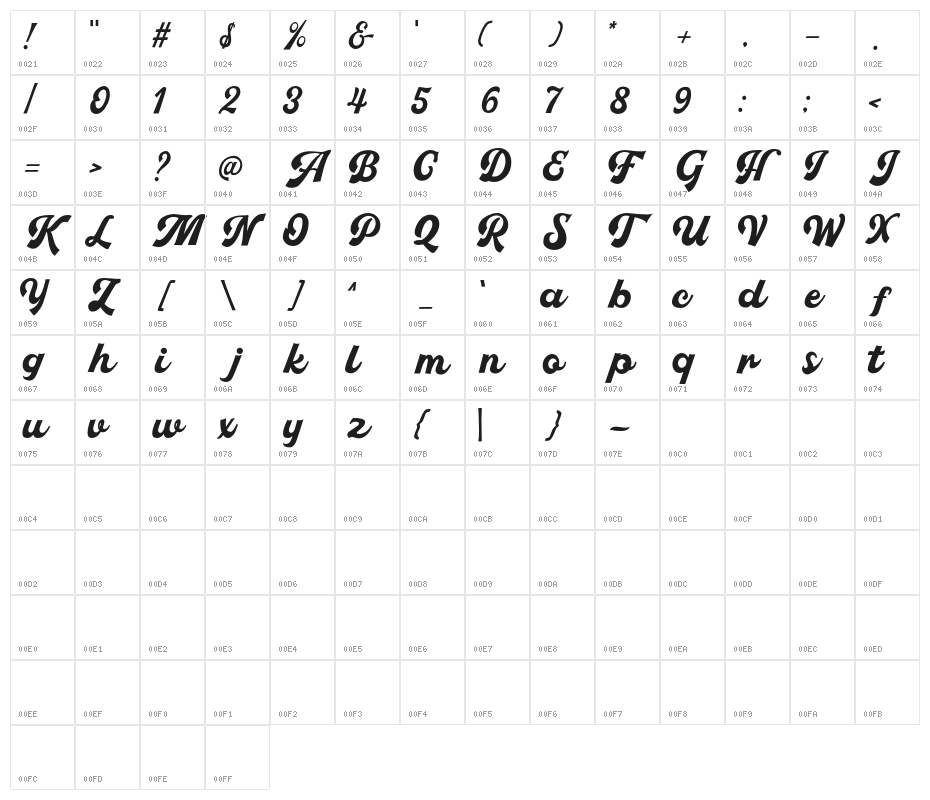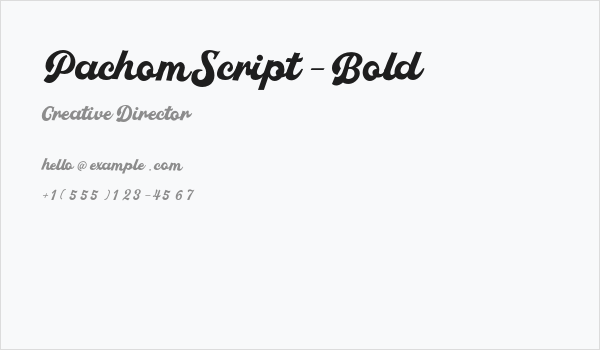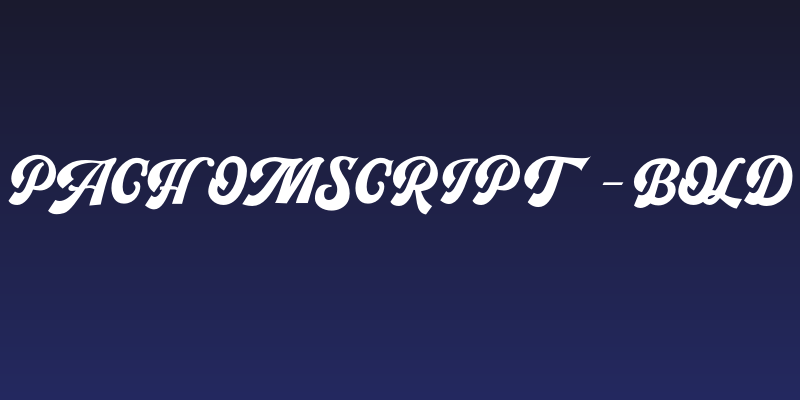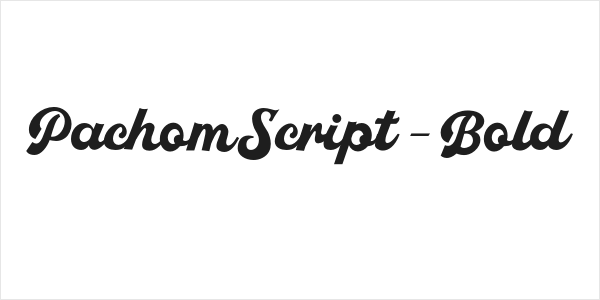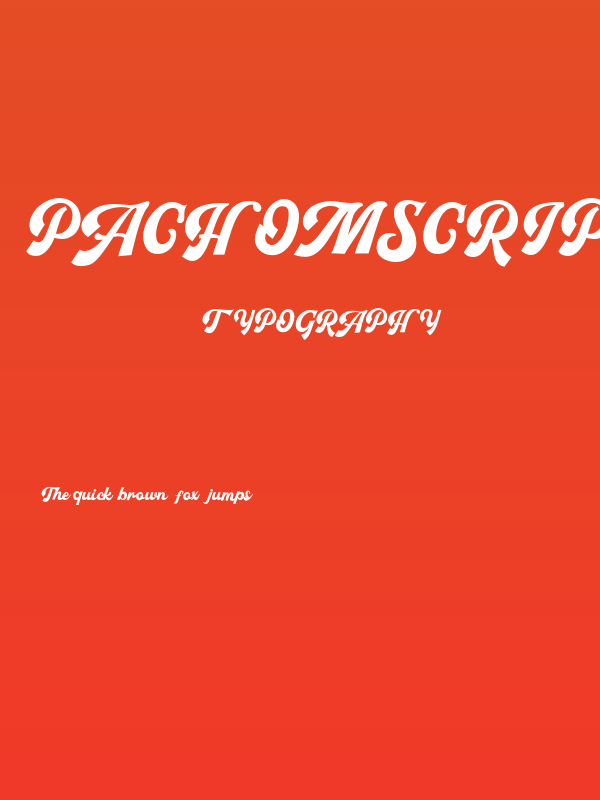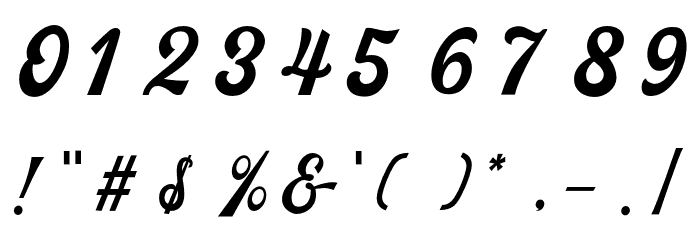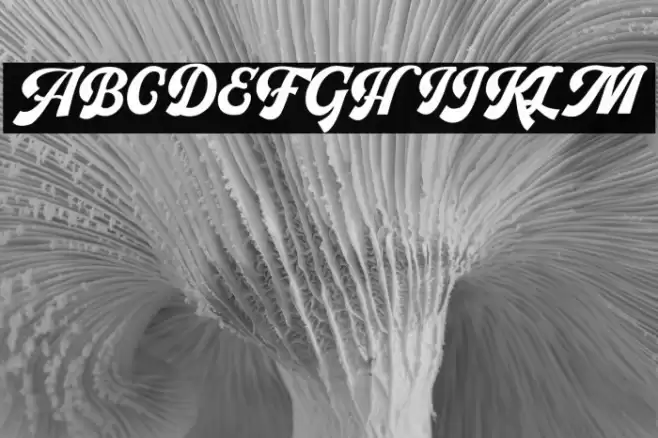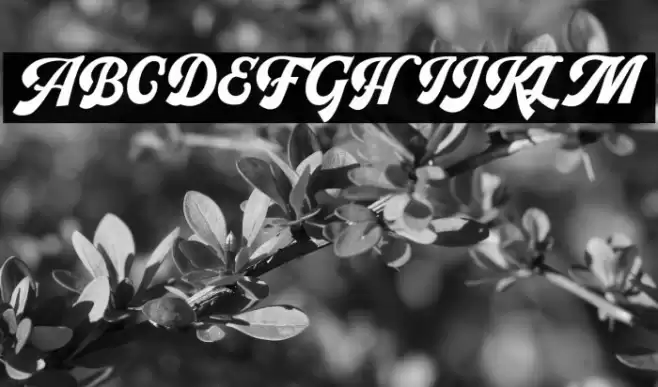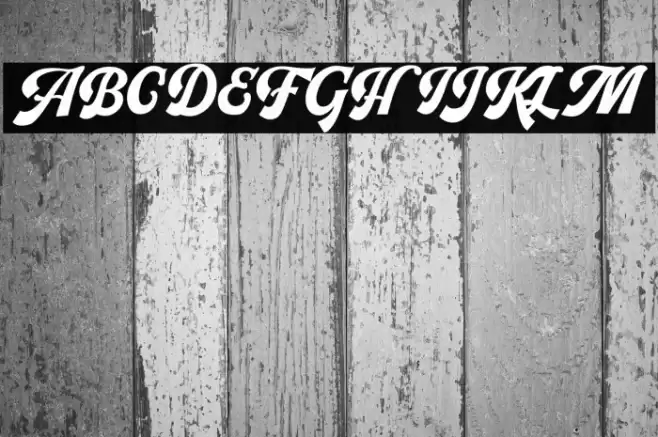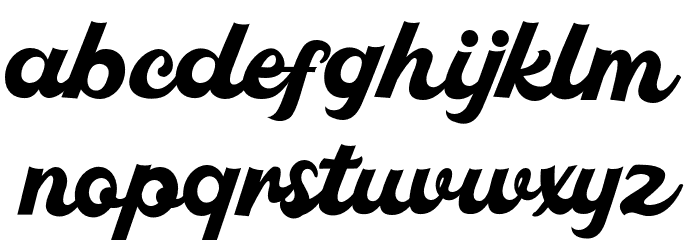
PachomScript-Bold Font
PachomScript-Bold Description
This font features a bold, flowing script style that exudes elegance and sophistication. The uppercase letters are characterized by their sweeping curves and dramatic flourishes, while the lowercase letters maintain a consistent, fluid motion that enhances readability. The numbers and special characters are designed to complement the overall aesthetic, with a harmonious blend of curves and angles. This font's bold weight and high contrast between thick and thin strokes make it stand out, ideal for creating impactful designs.
| Overall Style | Elegant |
| Use Case | Logos, Headlines, Invitations |
| Proposed Projects | Ideal for wedding invitations, luxury branding, elegant signage, and decorative headlines. |